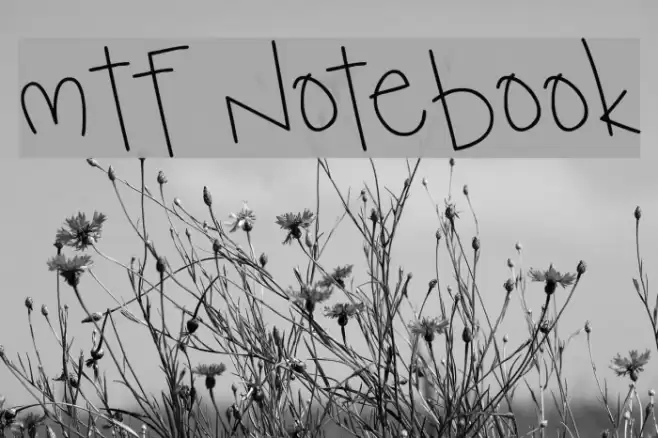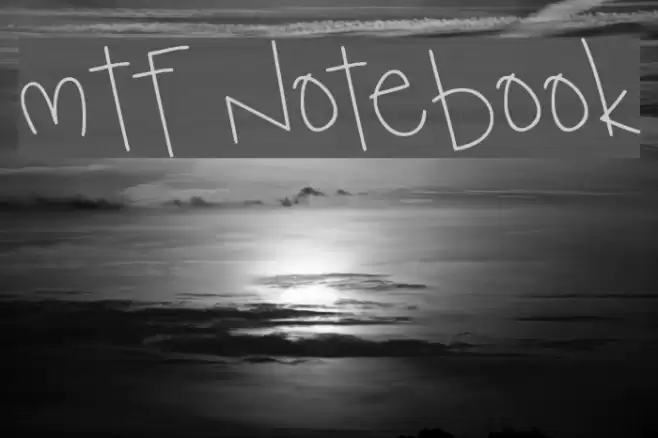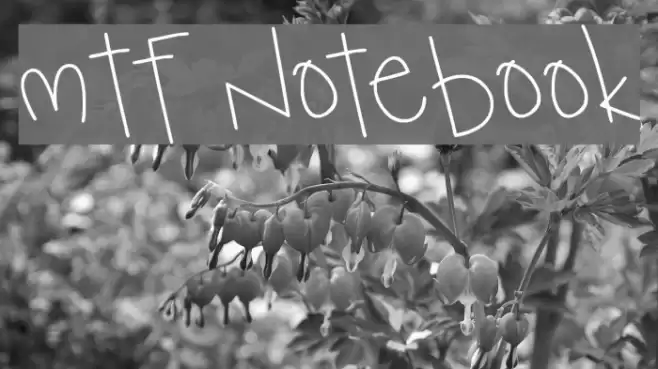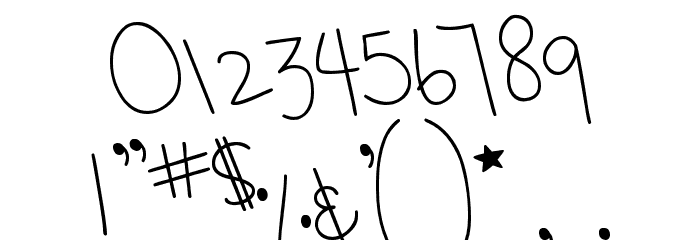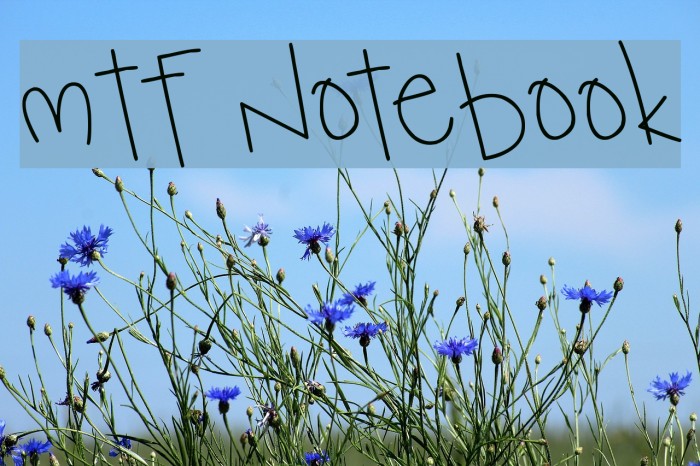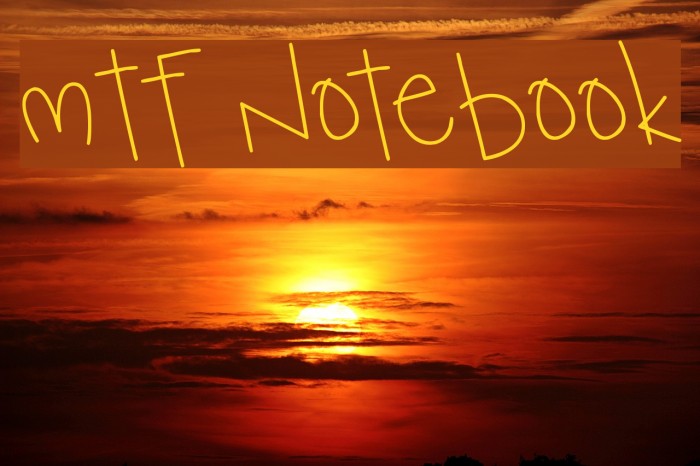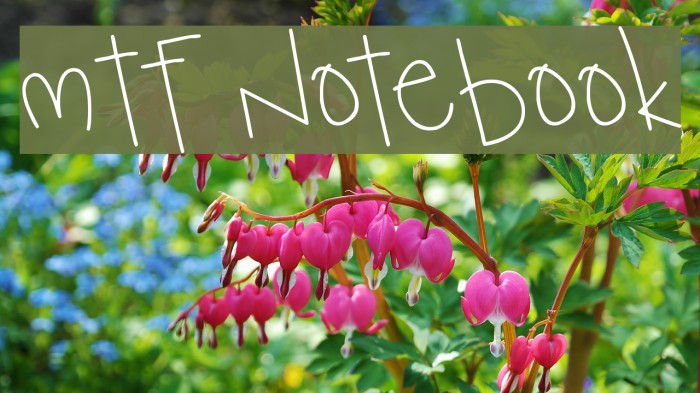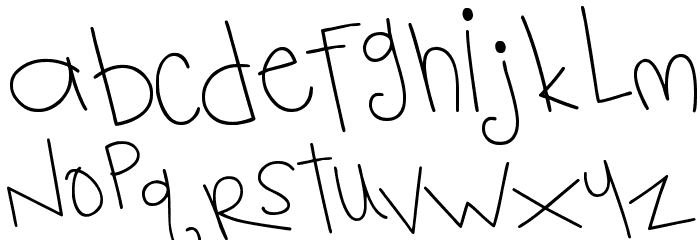
MTF Notebook Font
MTF Notebook Description
This playful and whimsical font features a handwritten style with a casual, informal appearance. The letters are slightly irregular, giving it a charming and approachable feel. The strokes are consistent in thickness, providing a uniform look across all characters. The rounded edges and smooth curves contribute to its friendly and inviting nature. The font includes both uppercase and lowercase letters, numerals, and a variety of special characters, making it versatile for different uses. Its unique style is perfect for projects that require a personal touch or a fun, lighthearted vibe.
A playful handwritten font with a casual, whimsical style from Uncategorized fonts.
- Font: MTF Notebook
- Proposed Projects: Ideal for children's books, greeting cards, personal blogs, and playful branding.
- Overall Style: Casual, Playful
- Use Case: Headlines, Informal text, Creative projects